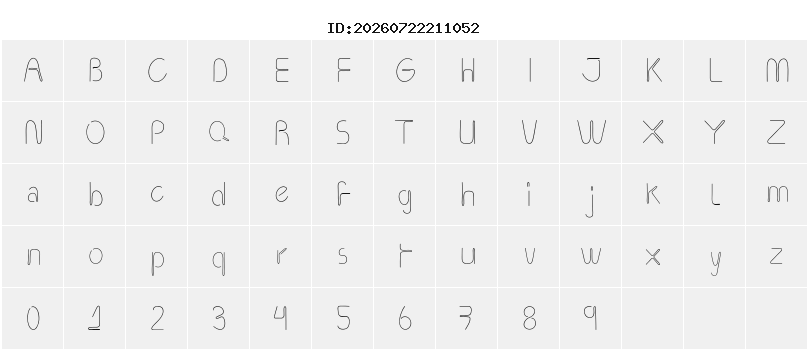
• Font Name: Mududede
• Full Font Name: Mududede
About Mududede.ttf
Mududede.ttf is a modern, elegant sans-serif font designed for ultimate readability and visual harmony. Perfect for branding, headlines, web design, and print materials.